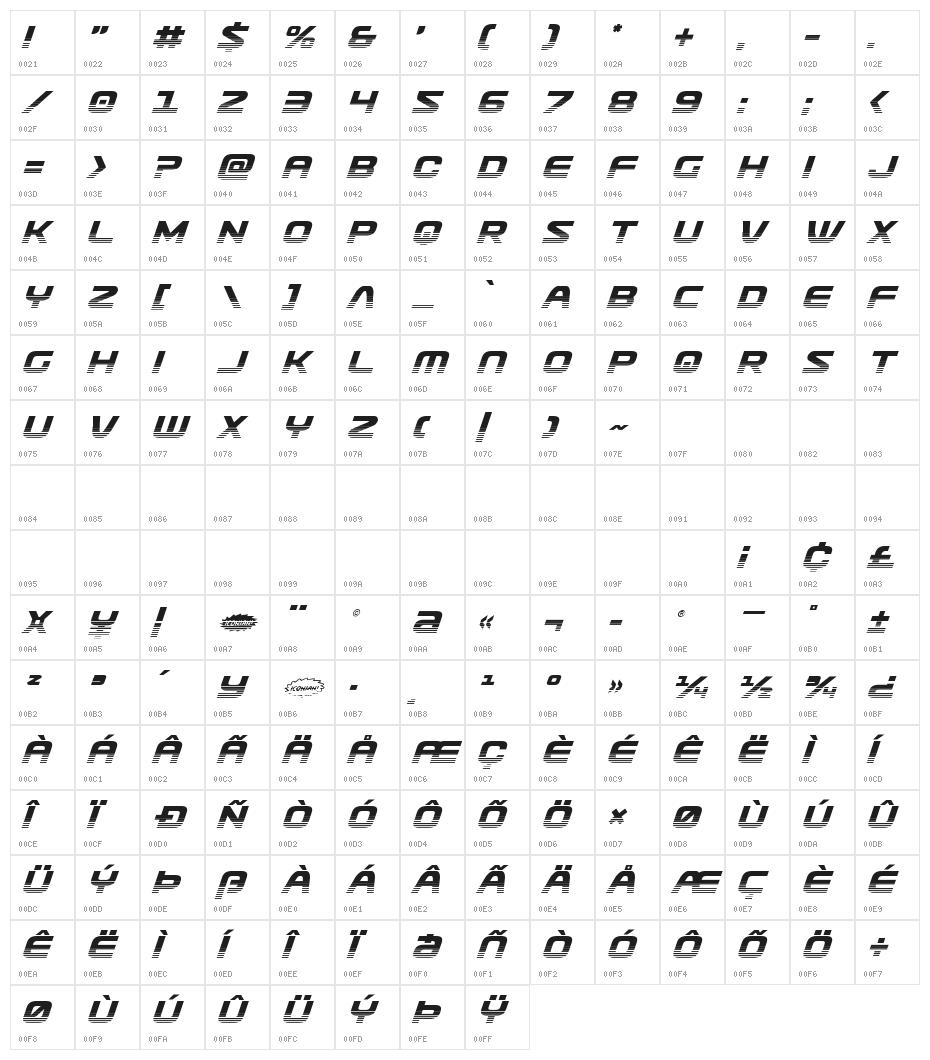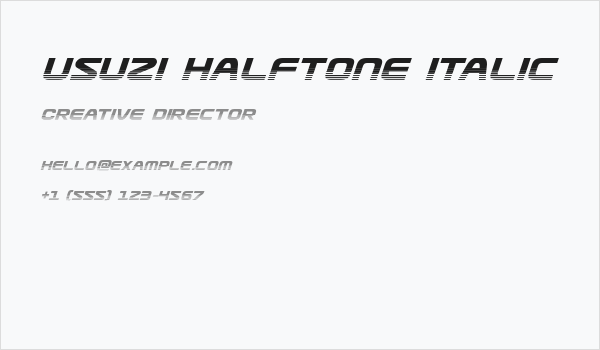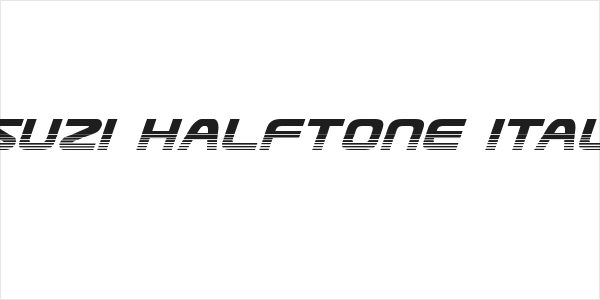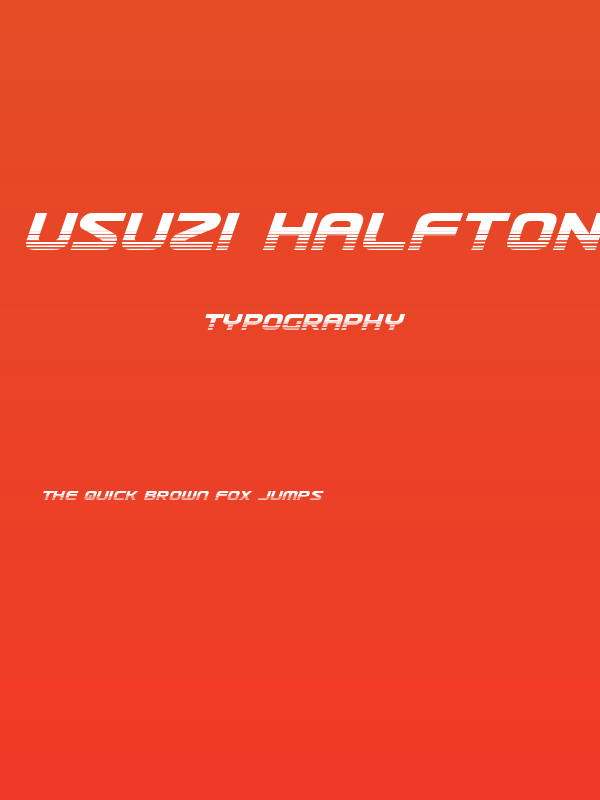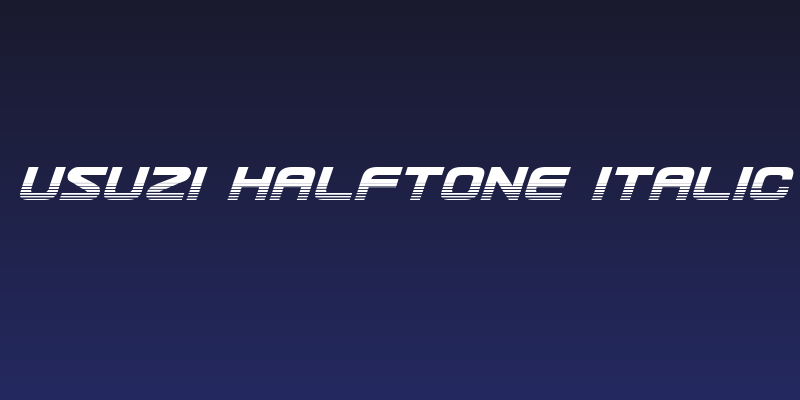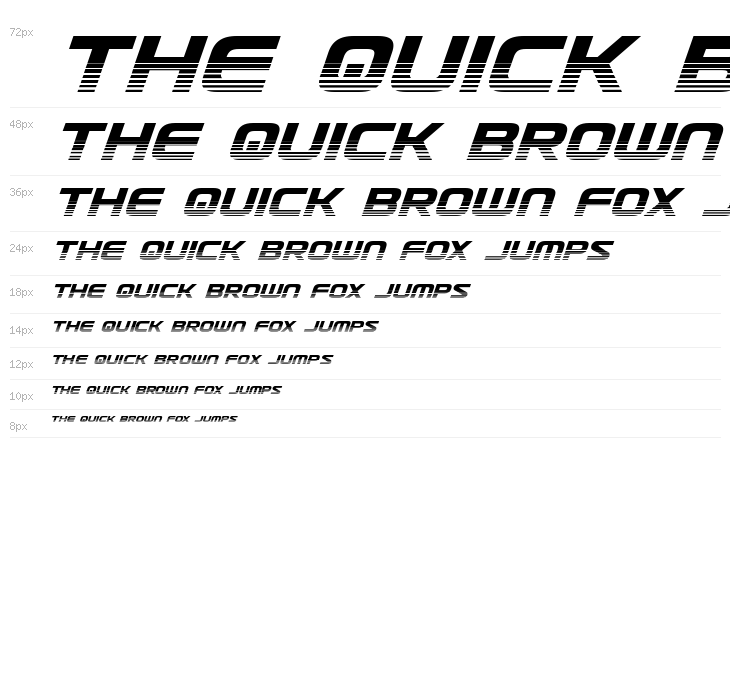
Usuzi Halftone Italic Font
Usuzi Halftone Italic Description
This font features a dynamic and futuristic design with a halftone effect that gives it a sense of movement and speed. The characters are italicized, adding to the forward-leaning, energetic appearance. Each letter is composed of horizontal lines that create a gradient effect, enhancing the modern and digital aesthetic. The font is bold and striking, making it ideal for attention-grabbing headlines or branding that requires a contemporary and edgy look. The spacing between characters is tight, contributing to the compact and cohesive feel of the text.